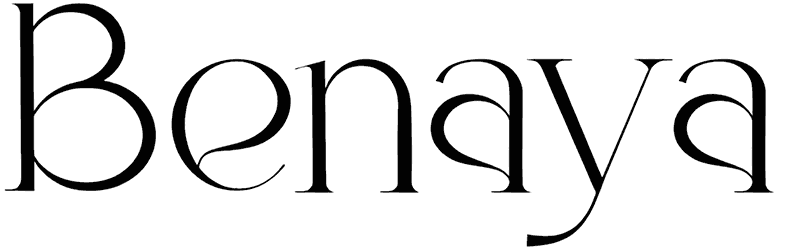
Benaya Font
For releasing classic and reliable effects and bringing these spirits to your designs, a serif font is needed. Feeling comfy in inventing many professional vintage outcomes for any style, Benaya is the pick of the litter.
This A-Z font has the potential to polish up any scheme, like magazine covers, documents, and even body text that calls for a prestige theme. Come on, and make a fast admission to our inventory of striking assets to describe your personality.